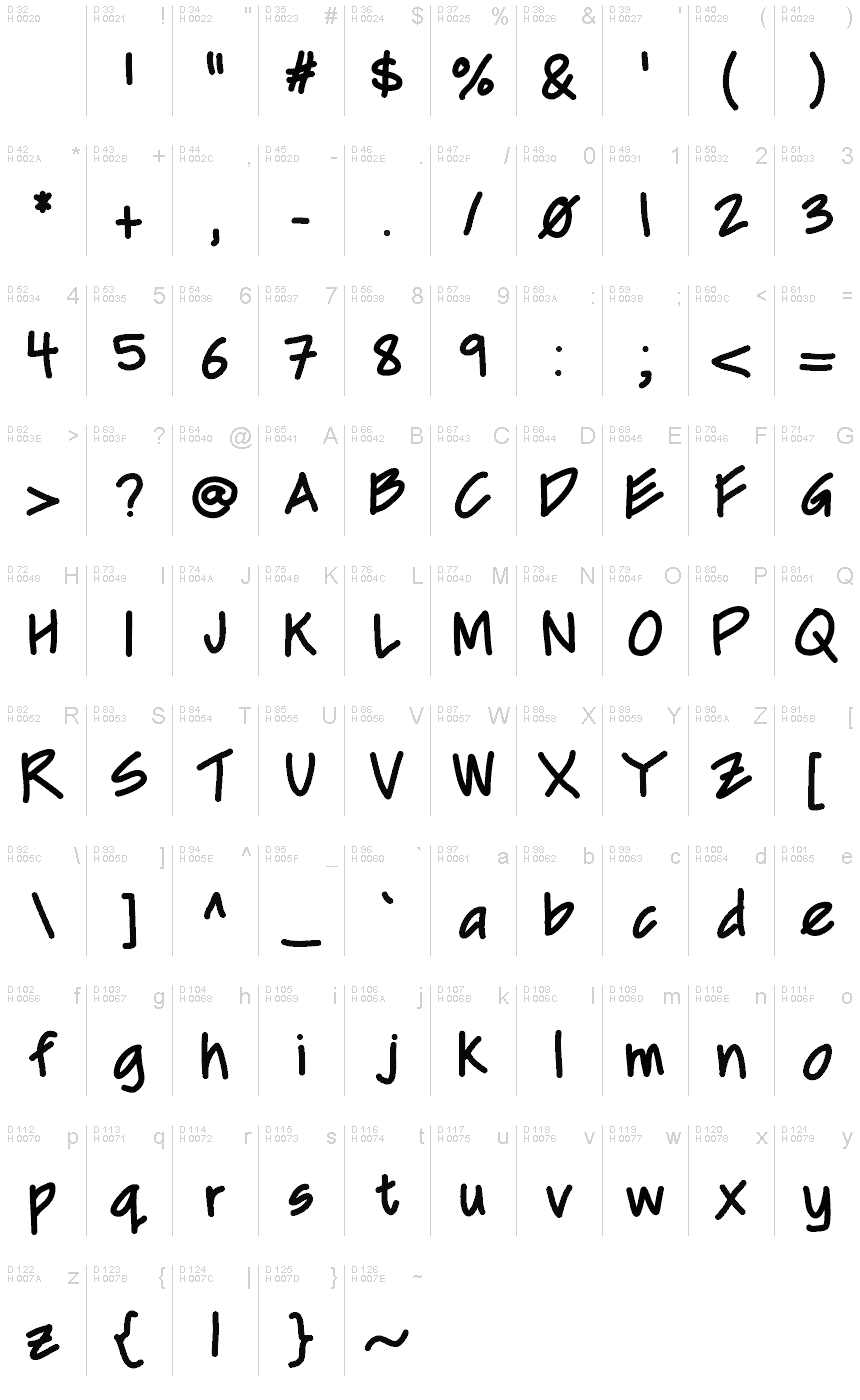
MixCD
Mix CD is a captivating casual handwritten font that exudes a playful and expressive charm. Designed by Mix Fonts, this font's dynamic strokes and organic flow create a sense of artistry and individuality, making it an excellent choice for a wide range of design applications. Its informal yet stylish aesthetic lends itself beautifully to branding, typography, and personal projects, where a touch of personality and authenticity is desired. Mix CD's versatility shines through, seamlessly transitioning from eye-catching headlines to warm, inviting body text.
The font's distinct character is evidenced in its unique letter shapes and the subtle variations that add depth and character to each glyph. This thoughtful attention to detail elevates Mix CD, positioning it as a valuable asset for designers seeking to infuse their work with a genuine, handcrafted feel.